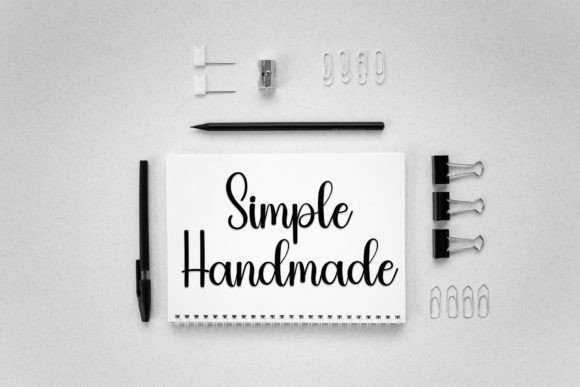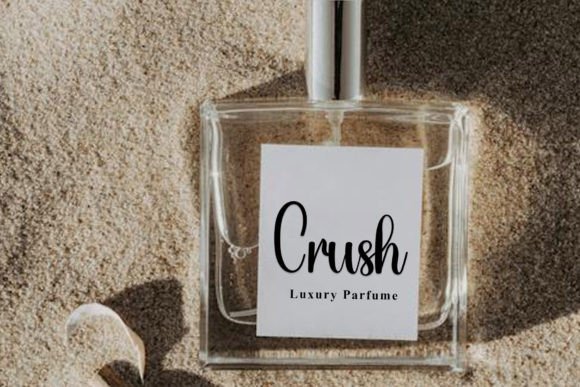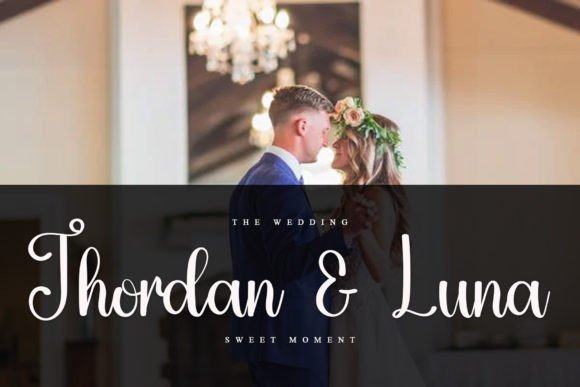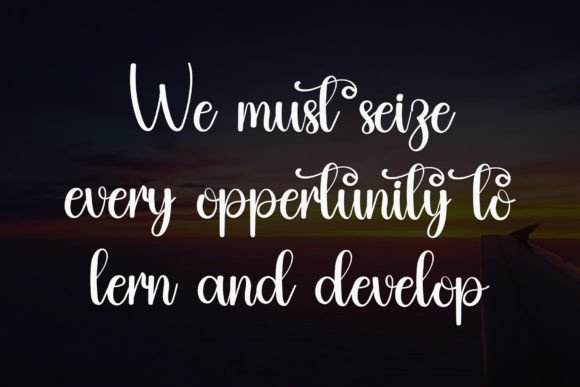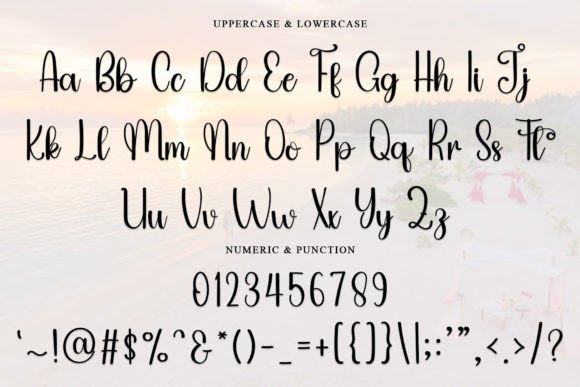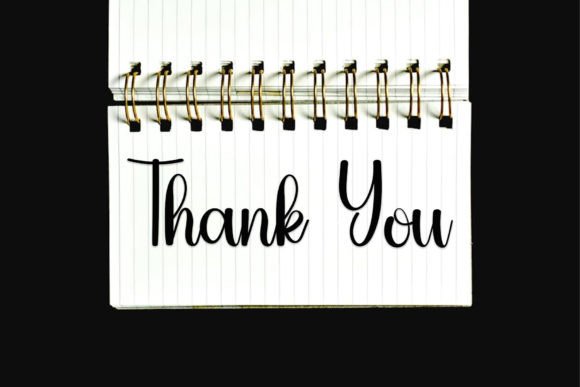
Introducing Airplane Font: Elevate Your Designs with Elegance and Charm
Are you tired of using the same old fonts in your designs? Look no further than Airplane Font, a stylish and sophisticated typeface that exudes elegance and charm. With its fluid strokes and natural flow, Airplane Font is perfect for adding a personal touch to invitations, branding, or social media. In this article, we’ll dive into the world of Airplane Font and explore its features, benefits, and uses.
The Characteristics of Airplane Font
Airplane Font is a beautifully crafted typeface that boasts fluid strokes and a natural flow. Its elegant design creates a captivating and sophisticated look that’s sure to impress. The font’s unique characteristics make it perfect for a variety of design applications, from formal invitations to social media graphics.
One of the standout features of Airplane Font is its ability to bring a sense of warmth and creativity to any design. Its smooth, flowing lines create a sense of movement and energy, making it perfect for designs that require a touch of personality.
Benefits of Using Airplane Font
So, why choose Airplane Font for your next design project? Here are just a few benefits of using this stunning typeface:
- Elegance and Sophistication: Airplane Font adds a touch of elegance and sophistication to any design, making it perfect for formal invitations, branding, and social media.
- Creativity and Personality: The font’s unique design and fluid strokes bring a sense of creativity and personality to any design, helping you to stand out from the crowd.
- Versatility: Airplane Font is perfect for a variety of design applications, from digital graphics to print materials.
- Easy to Read: Despite its elegant design, Airplane Font is easy to read, making it perfect for body text and headlines.
Uses of Airplane Font
Airplane Font is a versatile typeface that can be used in a variety of design applications. Here are just a few ideas to get you started:
- Invitations: Use Airplane Font to create beautiful, elegant invitations for weddings, parties, and other special occasions.
- Branding: Add a touch of sophistication to your brand with Airplane Font, perfect for logos, business cards, and letterheads.
- Social Media: Use Airplane Font to create eye-catching social media graphics, perfect for Instagram, Facebook, and Twitter.
- Digital Graphics: Create stunning digital graphics with Airplane Font, perfect for websites, blogs, and online marketing materials.
Tips for Using Airplane Font
Here are a few tips for using Airplane Font in your designs:
- Pair with Other Fonts: Airplane Font pairs perfectly with other fonts, such as sans-serif fonts for a modern look or serif fonts for a classic look.
- Experiment with Colors: Try out different colors and color combinations to find the perfect look for your design.
- Use for Headlines and Body Text: Airplane Font is perfect for both headlines and body text, making it a versatile addition to any design.
Airplane Font is a stylish and sophisticated typeface that’s perfect for adding a personal touch to invitations, branding, or social media. With its fluid strokes and natural flow, Airplane Font brings a sense of elegance and charm to any design. Whether you’re a designer, crafter, or DIY enthusiast, Airplane Font is a must-have addition to your font collection.